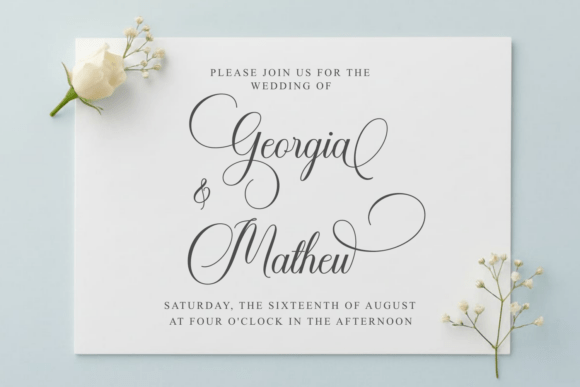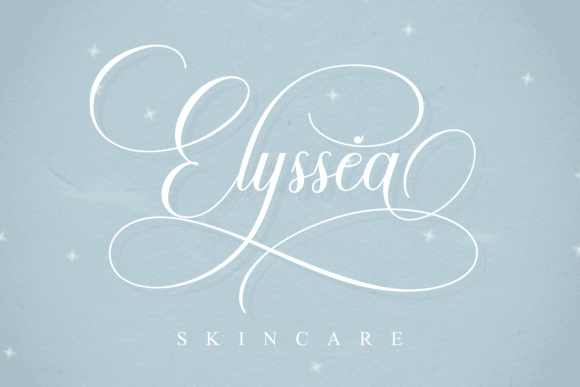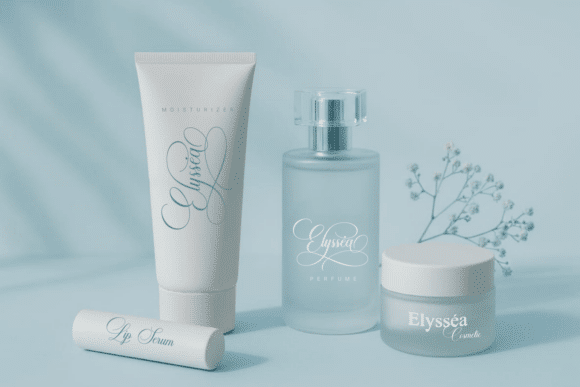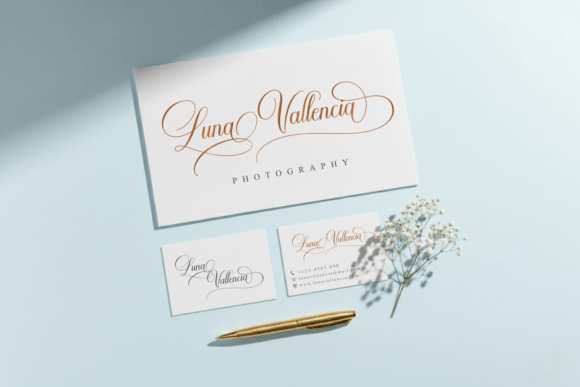
Alignment Font
Alignment is a modern calligraphy script font with elegant swashes and smooth handwritten strokes. Designed to be stylish, feminine, and luxurious, this font is perfect for creators who need a classy script font for both digital and print designs.